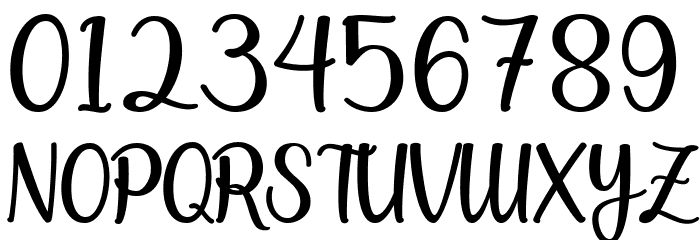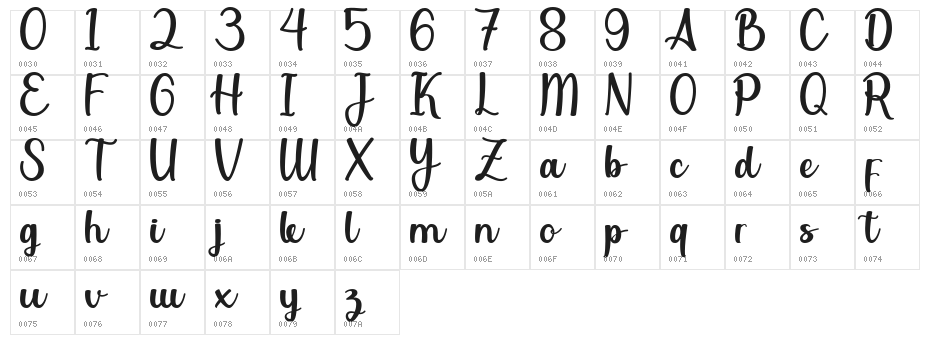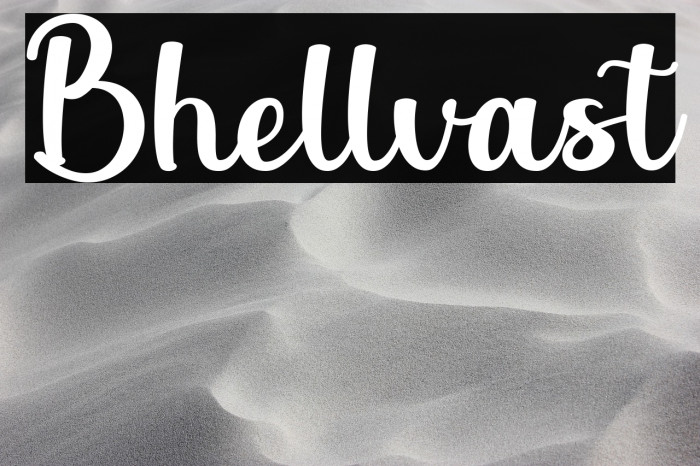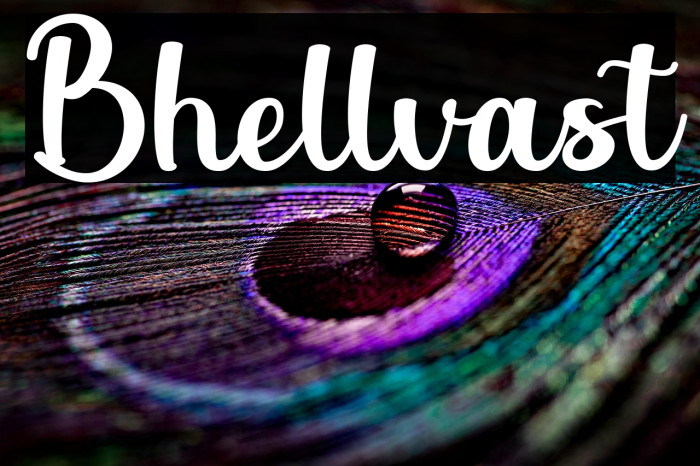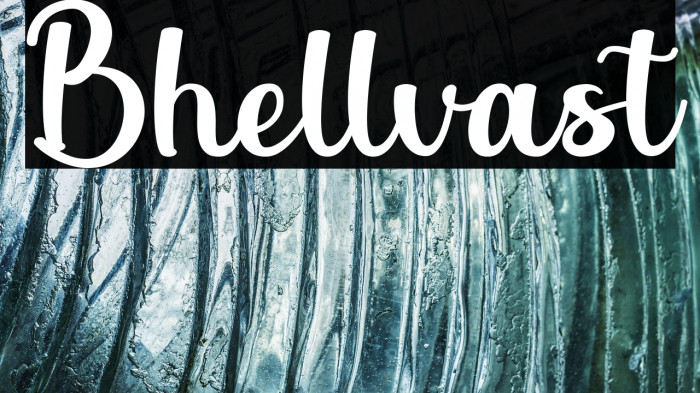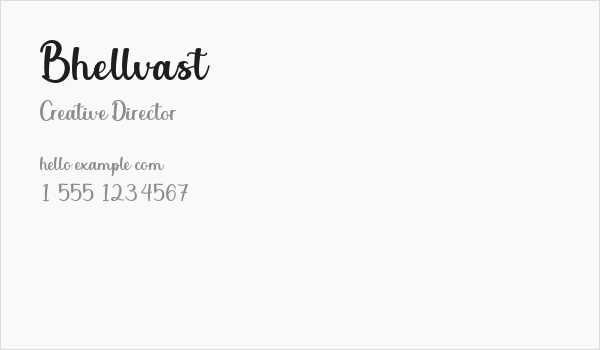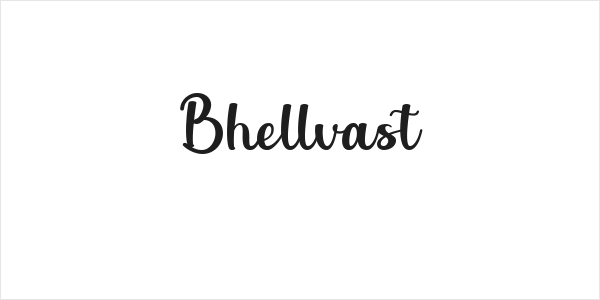
Bhellvast Font
Bhellvast Description
This font features a playful and energetic script style with a handwritten appearance. The letters are bold and rounded, with a consistent stroke width that gives it a friendly and approachable look. The uppercase letters are tall and slightly narrow, while the lowercase letters have a more relaxed and flowing form. The numbers are consistent with the overall style, maintaining the same playful and bold characteristics. Special characters are included, matching the whimsical and lively aesthetic of the font. This font is well-suited for projects that require a personal touch or a casual, fun vibe.
| Overall Style | Playful, Casual |
| Proposed Projects | Ideal for greeting cards, playful branding, children's books, and social media graphics. |